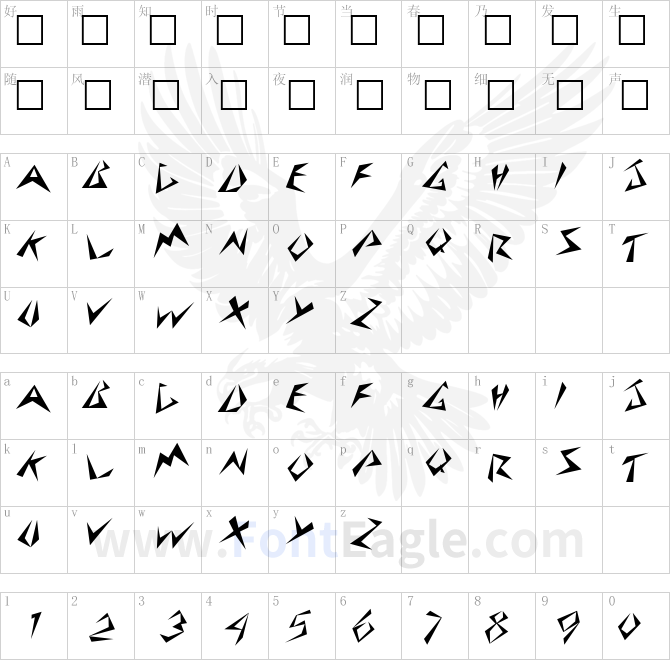
- Font name:StingerSkewed
- Font Subfamily ID:Weatherly Systems, Inc. StingerSkewed Regular
- Font Full Name:StingerSkewed Regular
- Postscript:StingerSkewed